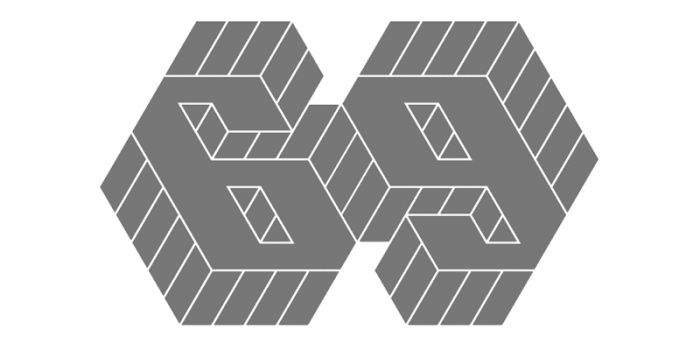
This is a work in progress. I'm still not sure about the Q,T,4. Naturally, the letters should be much closer to each other, in this case with no gaps in between. However, this would cause huge problems for kerning. The only true solution would be the generation of large number of kerning pairs, and if that is not good enough, a large number of ligatures.
Interesting and well executed concept, my eye keeps switching from the one perspective to the other and back. I can see your issue with kerning when trying to let the letters touch and you would probably need to take it into OpenType software to achieve that. They do work well as they are though!
@p2pnut: Thank you for your comment. Yes, it is the flip-flop, as our mind keep switching between the two perspectives.
This work is a natural extension of the Rohan family. It only took a bit long to find the right formula, without overkill. The demo sample should have been something better, something positive, e.g. HOPE, TYPE or NO DOPE.
Congrats for the well deserved TP! You'll can try to "overload" or "superimpose" (= put the end of one glyph over the begining of the next one, eliminating the space between they, I don't know the right word in english) the letters like the sample seems, it will be great, IMHO.